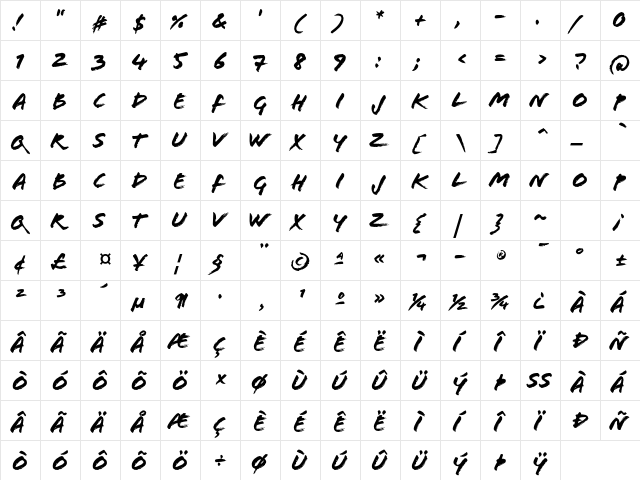
Flood Std Regular
| Designer | Joachim M߬ler-Lanc |
Design Context for Flood Std Typeface
Flood Std is a composed and adaptable typeface that performs quietly and consistently across a wide range of design contexts.